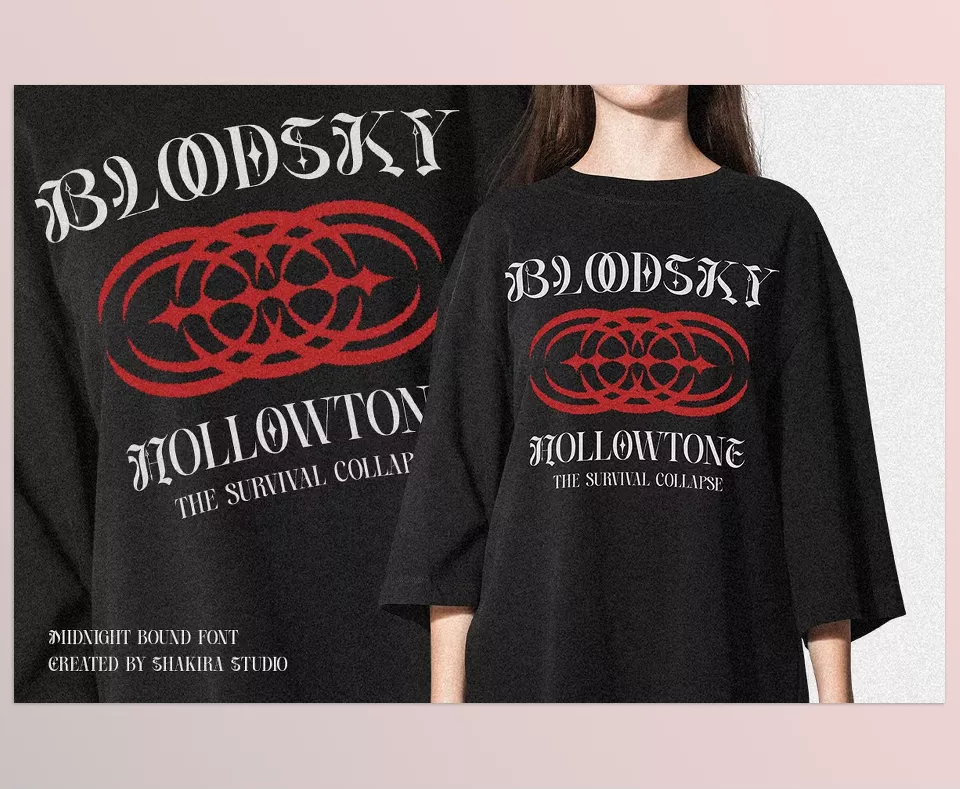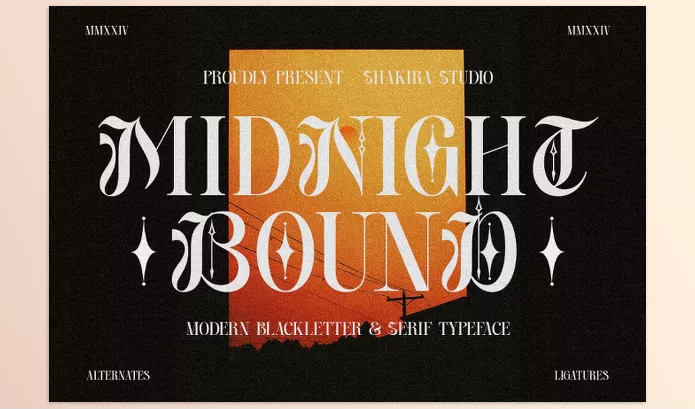
Creative Market – Midnight Bound Blackletter x Serif is designed to accurately fit sophistication to any project and brings forth an elegant accent through the combination of classic blackletter and famous serif styles. Intricate logos, editorial as well as digital interfaces make this typeface an epitome of perfection owing to its multilingual intricately designed characters.
Shakira Studio – Midnight Bound Blackletter x Serif Features
Design Style:
- Bold Fusion of Blackletter and Serif: A blend of historical and modern designs that is one of a kind and creates a bold statement.
- Richly Detailed Characters: Looking for something intricate, this font is beautifully rich and detailed to help capture sophisticated looks.
Functionality:
- OpenType Features: Helps cover a range of designs with ligatures and characters for better customization.
Target Audience:
- Designers: Striking logos as well as digital interfaces and editorial content can be easily designed using the font type.
- Creatives: Among projects that require bold and powerful aesthetics to stand out, this is a font type that every creative needs for their arsenal.
Overall Benefit:
Creative Market – Midnight Bound Blackletter x Serif Overview
Image 1: richly detailed characters and refined sophistication, this is the ideal choice for any design project.
Image 2: A distinctive fusion of historical and contemporary styles.